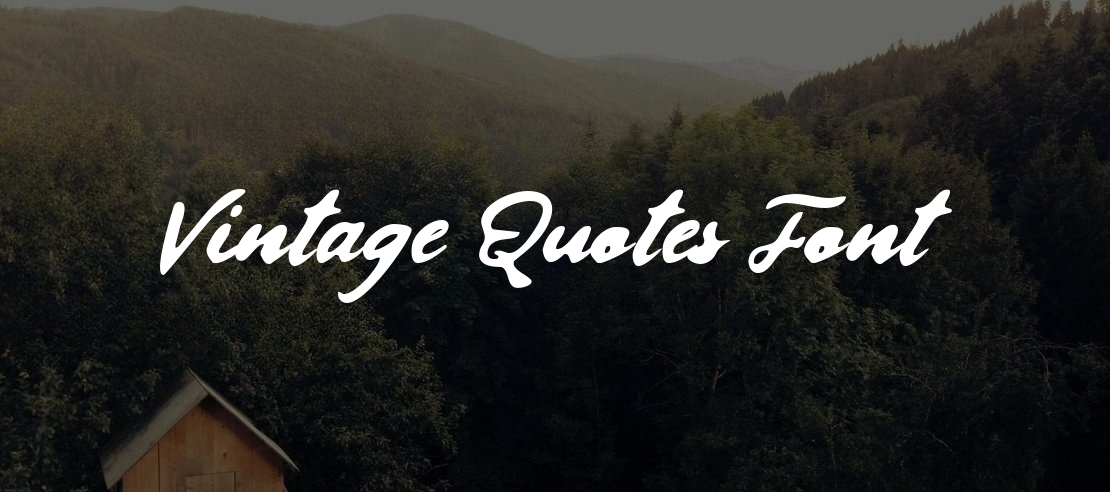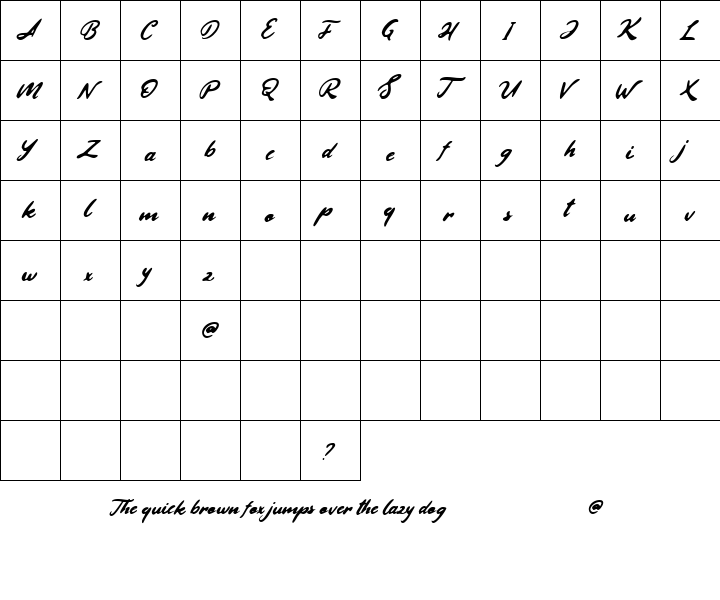
Vintage Quotes Font is a calligraphy typeface that was designed by Lettersiro Studio in 1996. The design of the letters is based on the handwriting of early 20th-century Italian calligraphers. This font art is characterized by its script characters and organic forms. This font contains a lot of history and meaning behind each piece. If you want to see the similarities of this typeface and want to pair them then ananda font is the best option for you.
This font has exhibited her work internationally, including in the United States, Europe, and Asia. This font is utilized in many various ways. It can be used for paintings, sculptures, and other forms of artwork. This font is also commonly used for titles, headings, and short paragraphs of text.
It’s a versatile font that can be used for both digital and print projects. You can mix the typeface with others and can be used as a pairing with adventure font a basic category font you can download free from our web portal.
This typeface was designed by a very famous designer named Lettersiro Studio. This font designer is very popular among users he made a lot of fonts and all the fonts are very popular in the fonts market.
| Name | Vintage Quotes Font |
| Style | Calligraphy |
| Designer | Lettersiro Studio |
Yes, This Font can be used on Posters. The font is available in only regular weight and includes support for multiple languages.
Yes, This Font can be used for a design project. This unique texture font has a lot of personalities and can help add a touch of sophistication to your project.
Yes, This Font is appropriate for use in a logo or other branding materials. Its simple and clean design makes it a great choice for creating a professional and sophisticated look.